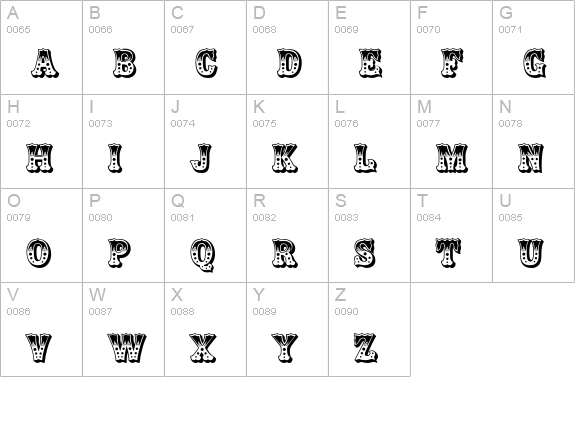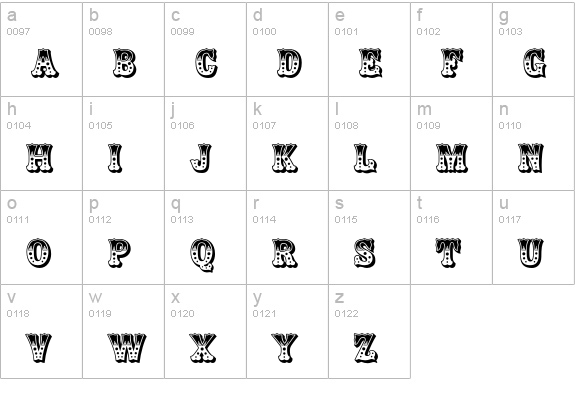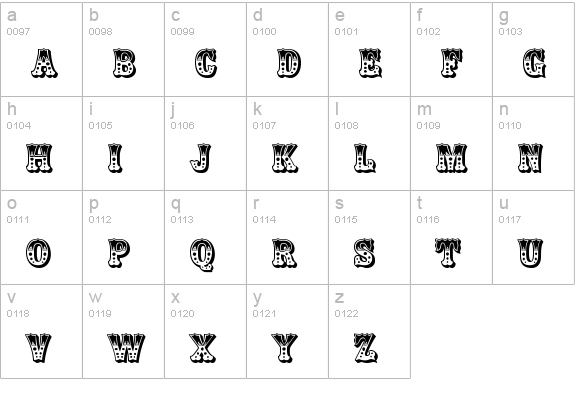
Zebrawood Regular is the standard, neutral variant in the Zebrawood typeface family \xE2\x80\x94 well suited to general body text, paragraphs, and standard typographic work.
Zebrawood Regular font is a stunning display typeface that exudes elegance and sophistication. Its unique zebra-like patterns and clean lines make it perfect for a variety of design projects, from branding to packaging to signage. The bold and eye-catching nature of Zebrawood Regular font will surely make your designs stand out and leave a lasting impression on viewers. What's even better is that Zebrawood Regular font is available for free download at FontsMarket.com. This means you can easily access this beautiful typeface and use it in your projects without any cost. Don't miss out on the opportunity to enhance your designs with the distinctive charm of Zebrawood Regular font – download it today and let your creativity shine!